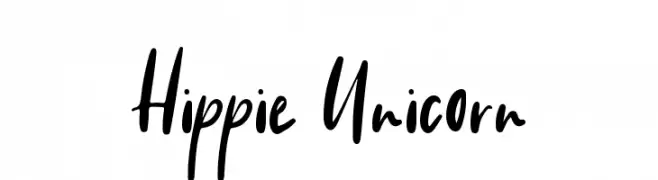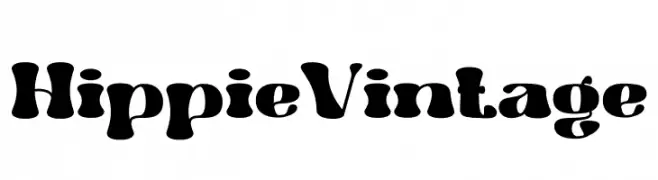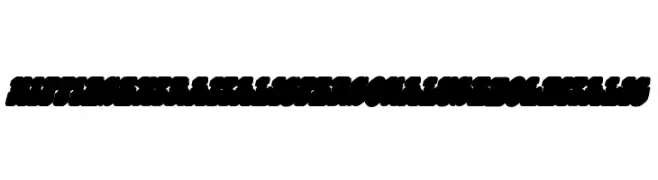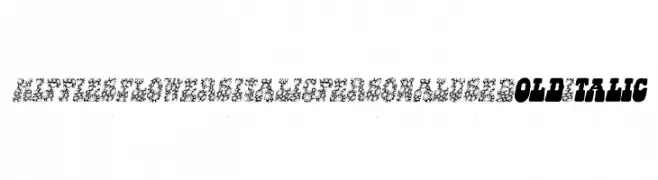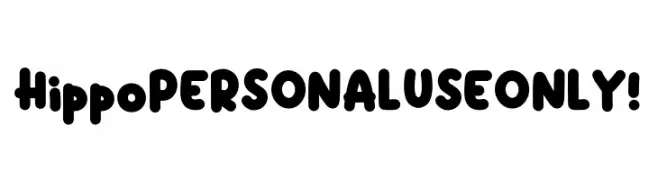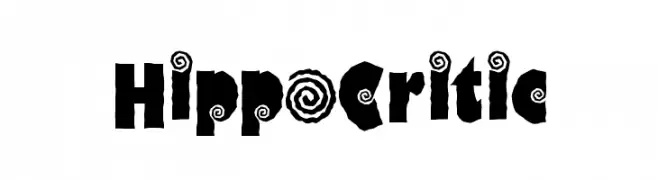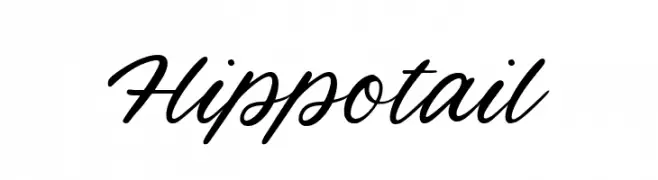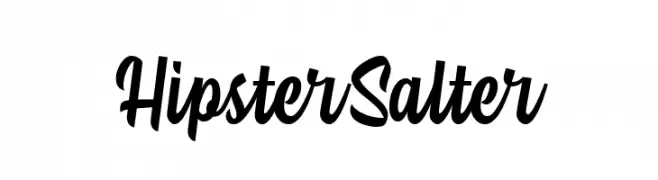
A playful, handwritten font with dynamic strokes and a whimsical style.
A bold, vintage-inspired font with a playful, retro aesthetic.
A bold, playful font with a retro, bubbly design.
A bold, italicized font with a retro, playful vibe and strong presence.
A bold, italic, floral-patterned decorative font with a retro vibe.
A playful, bold font with rounded, bubbly characters ideal for fun and informal projects.
A bold, geometric font with a 3D effect and strong visual impact.
A dynamic and elegant cursive script font with fluid letterforms.